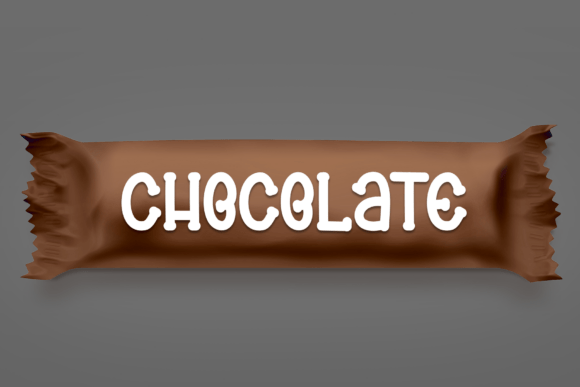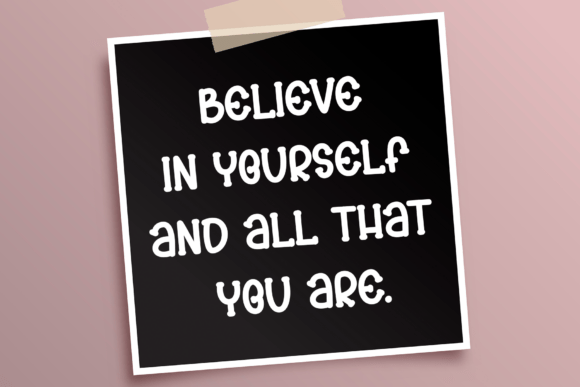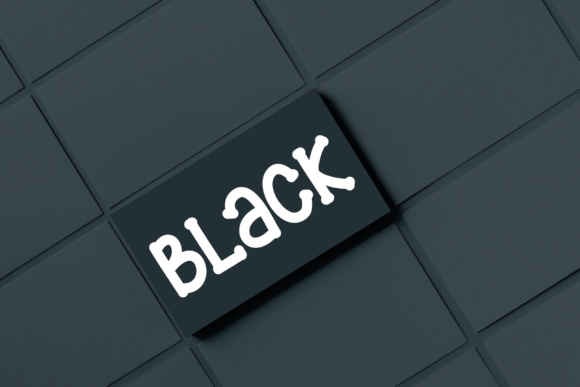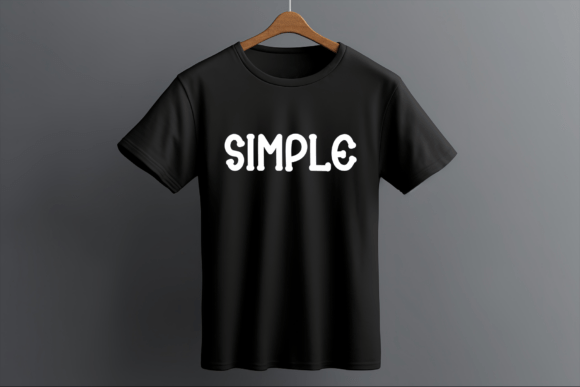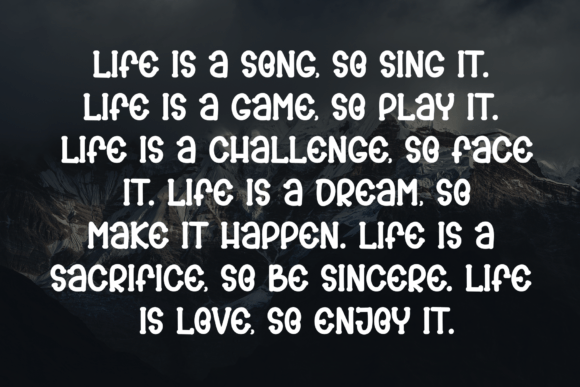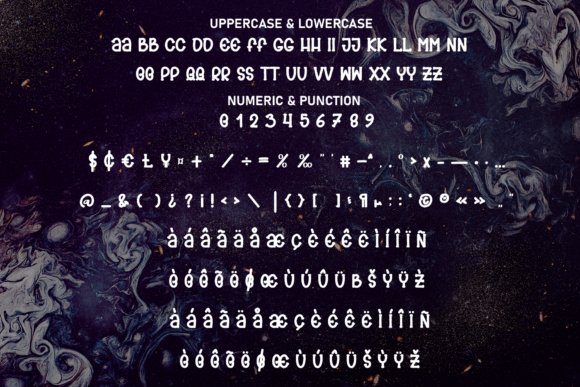
Introduction to Mistic Font
Have you ever found yourself stuck in a creative rut, searching for the perfect font to elevate your project? I’m sure we’ve all been there – staring at a blank screen, trying to convey a message that’s both clear and captivating. It’s in these moments that the right font can be a game-changer. That’s where Mistic Font comes in – a stylish and approachable display font designed to bring warmth and clarity to your creative endeavors.
As designers, we’re always on the lookout for high-quality design resources that can help us stand out from the crowd. And with its clean structure and transparent background, Mistic Font is a valuable addition to any design toolkit. Whether you’re working on a branding project or everyday designs, this font is sure to bring a touch of elegance and charm to your work.
Key Features of Mistic Font
- High-quality design resource for creative projects, ideal for digital art and graphics.
- Features a transparent background, allowing for seamless integration with other design elements.
- Includes a range of characters, including uppercase and lowercase letters, numbers, and symbols.
- Designed with a unique, mystical aesthetic, making it perfect for fantasy-themed projects.
Honest Review: Mistic Font
As a designer, I’m always on the lookout for high-quality design resources to elevate my creative projects. Recently, I stumbled upon the Mistic Font, and I’m excited to share my thoughts on it.
- ✨ Unique and elegant design aesthetic, perfect for modern branding and packaging projects
- ⚠️ Limited character set, which may not be suitable for longer blocks of text
- ⚠️ No bold or italic variations available, which may limit its versatility
Mistic Font is a high-quality design resource ideal for creative projects that demand a unique touch. Its transparent background and elegant style make it a versatile choice for various applications.
Tips for Getting the Most Out of Mistic Font
For optimal results, use Mistic Font in conjunction with a high-contrast background to maximize its visual impact.
Mistic Font is commonly used in creative projects such as:
1. Branding and logo design
2. Infographics and data visualization
3. Digital art and graphic design
Yes, Mistic Font has a transparent background, making it ideal for use in creative projects that require a high level of design flexibility. The font’s transparent background allows you to easily layer it over other design elements or use it in conjunction with other design resources.